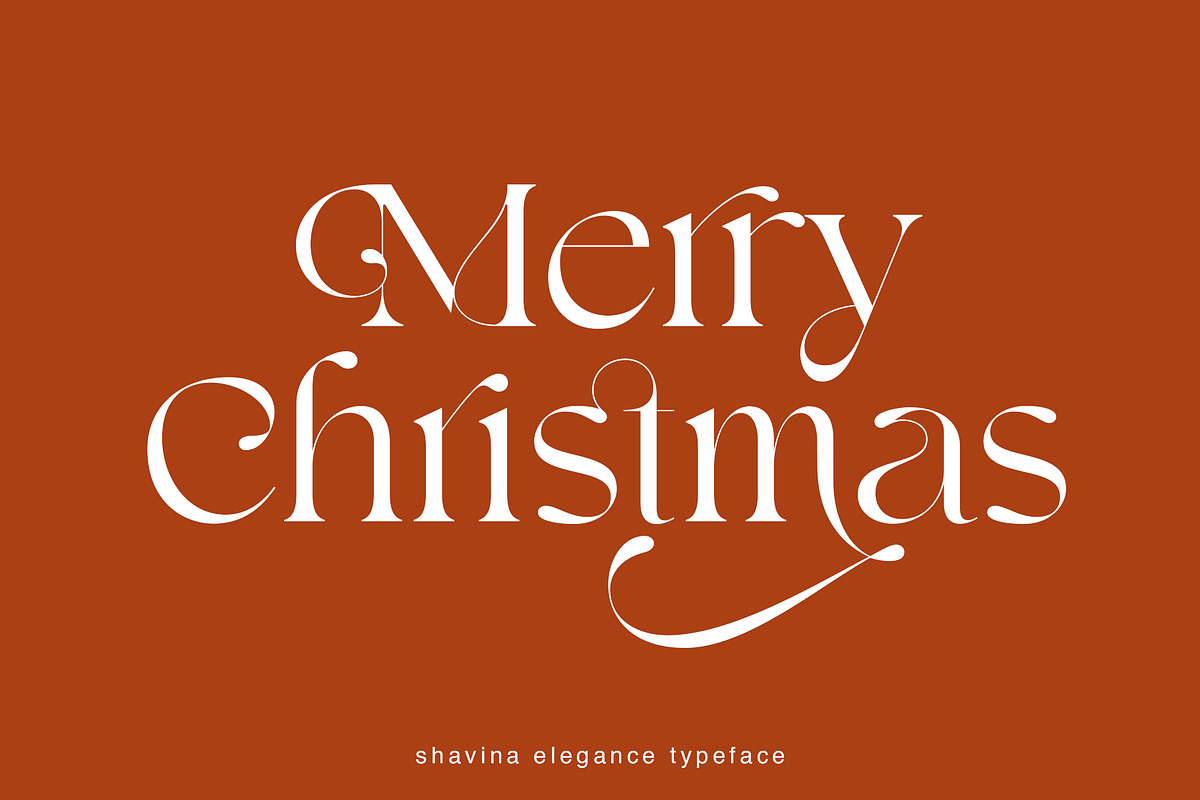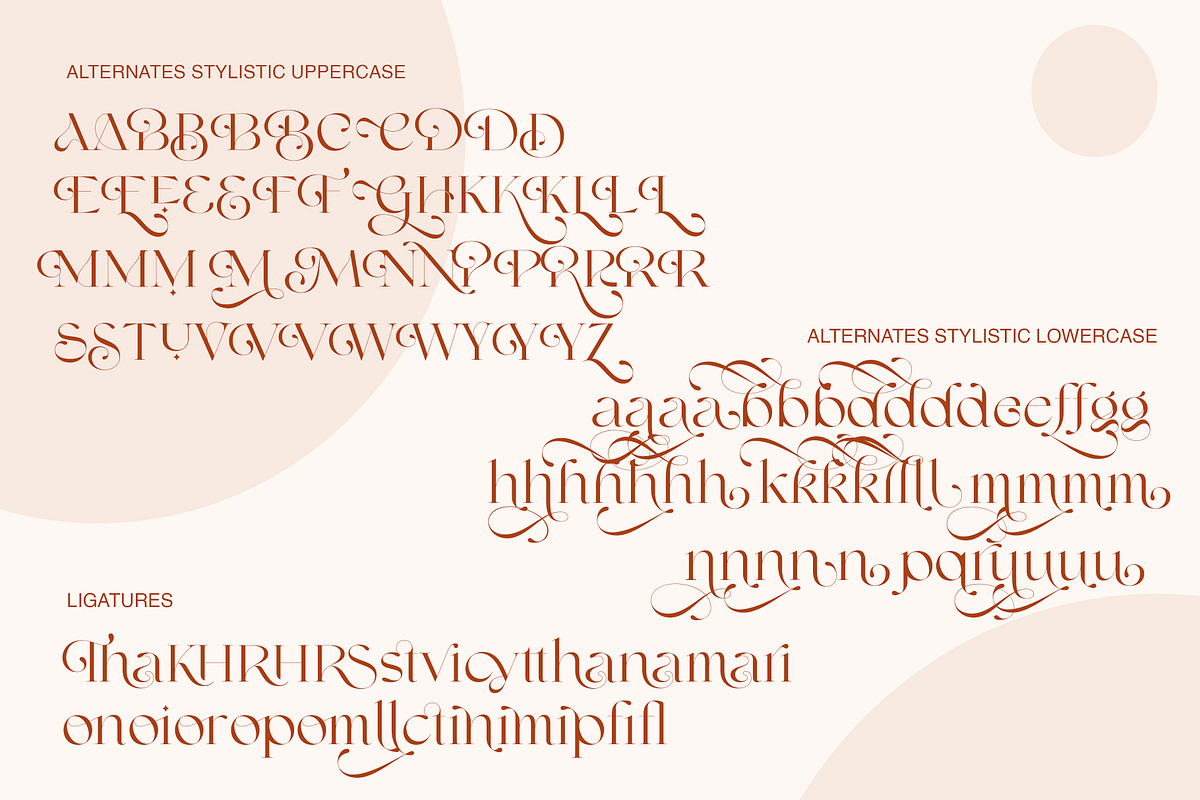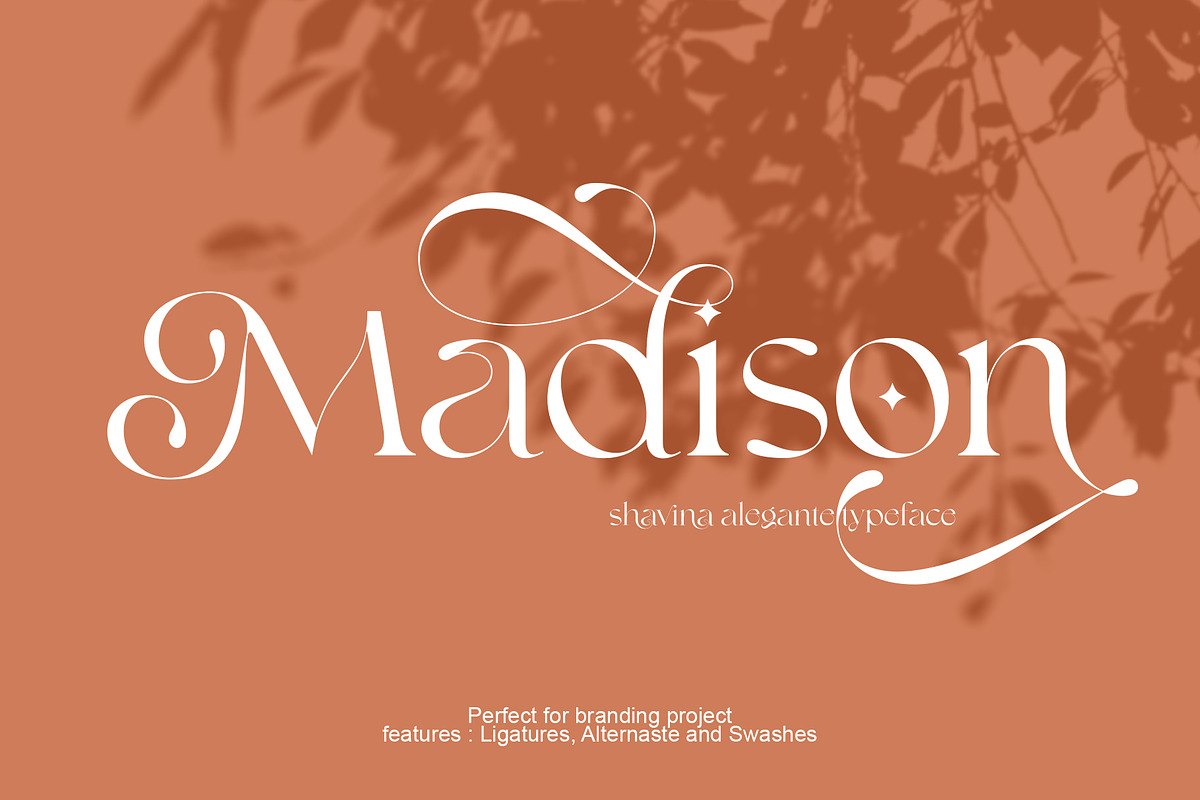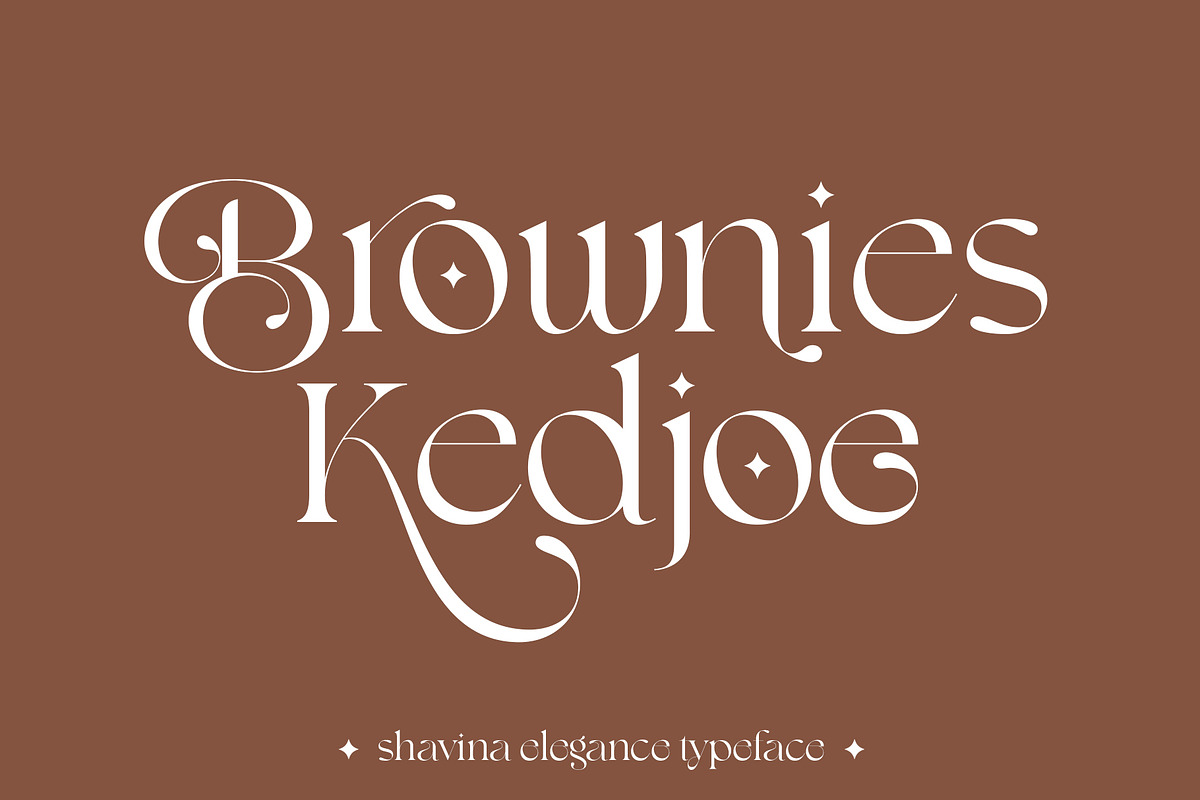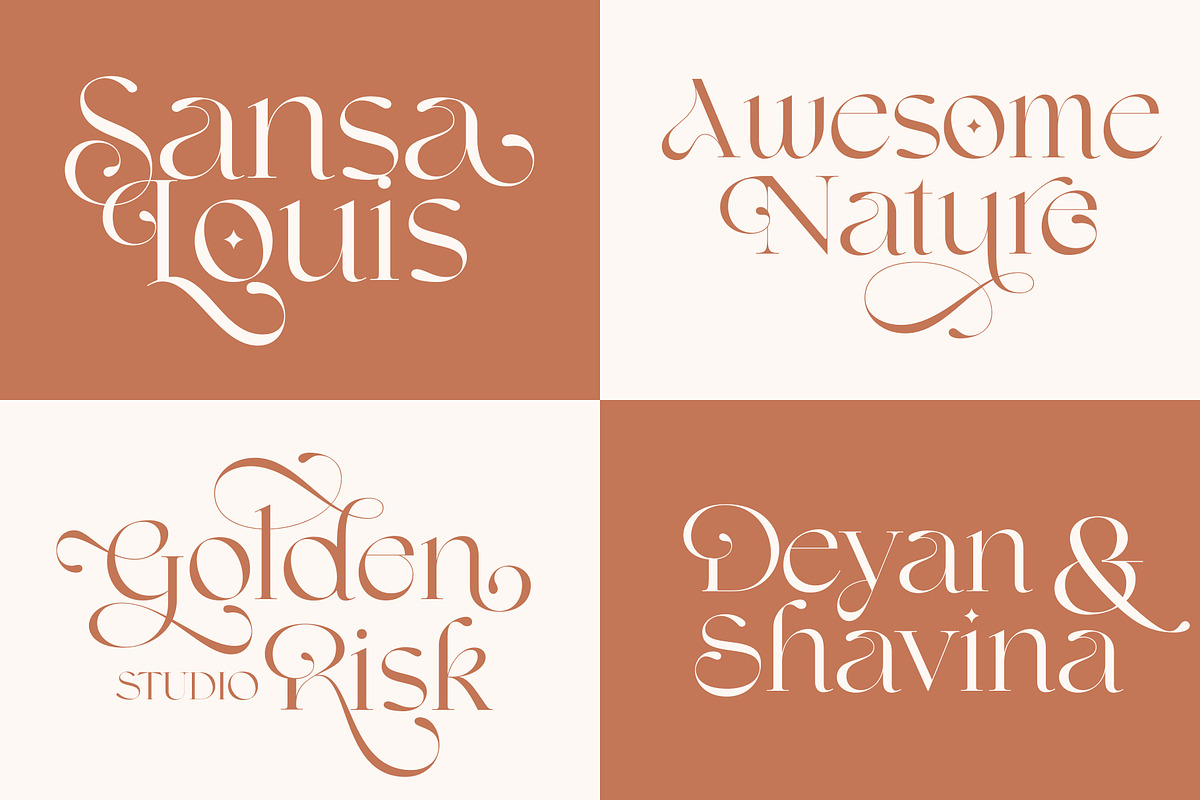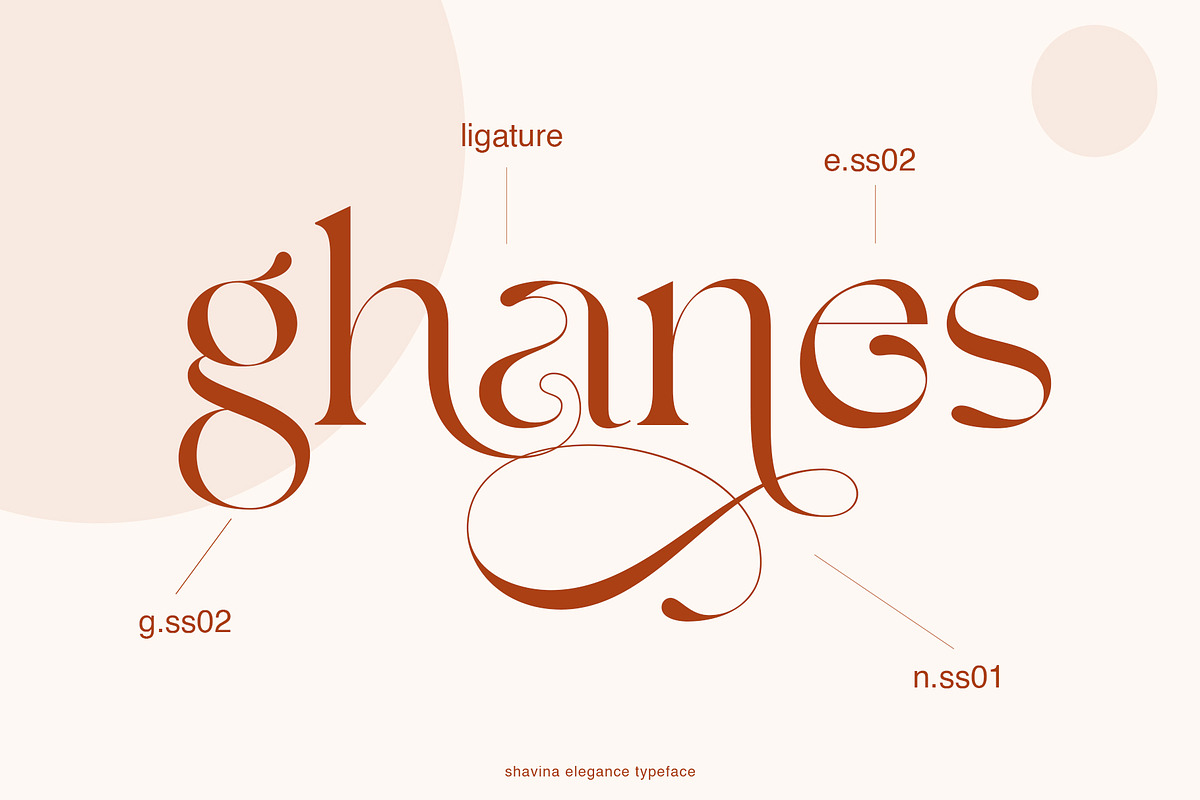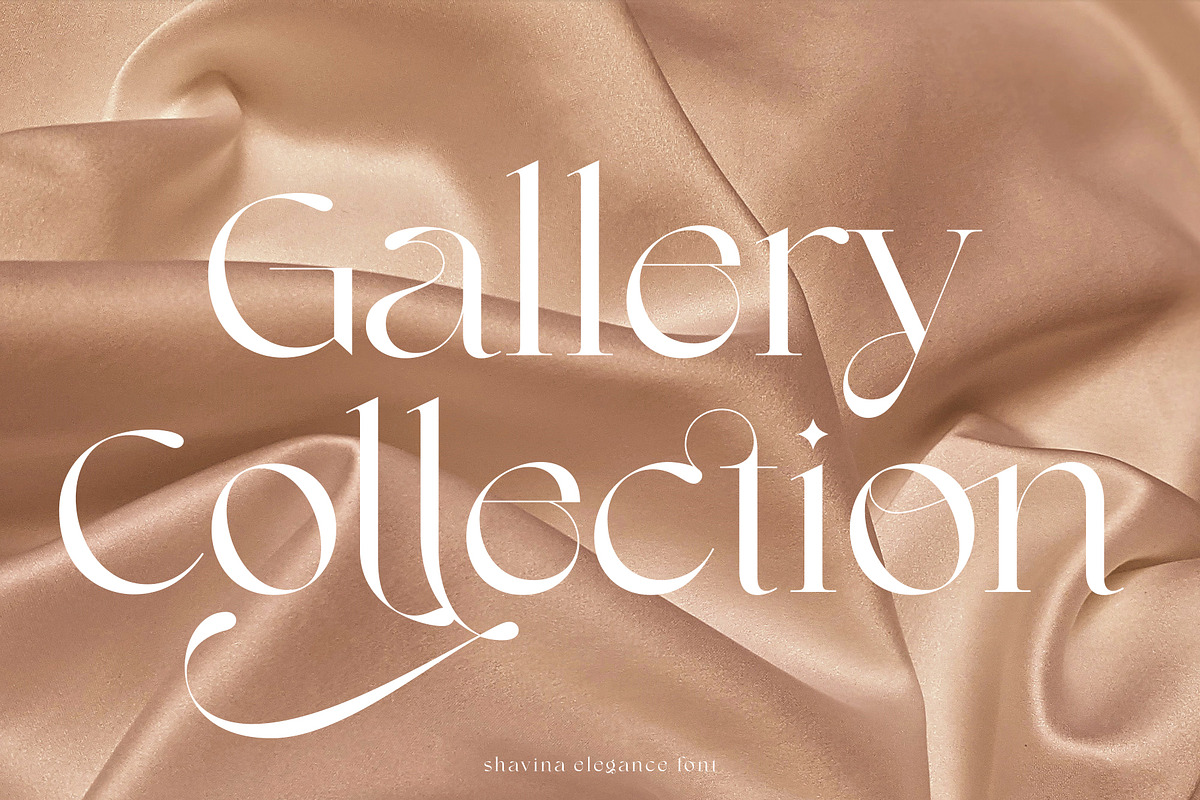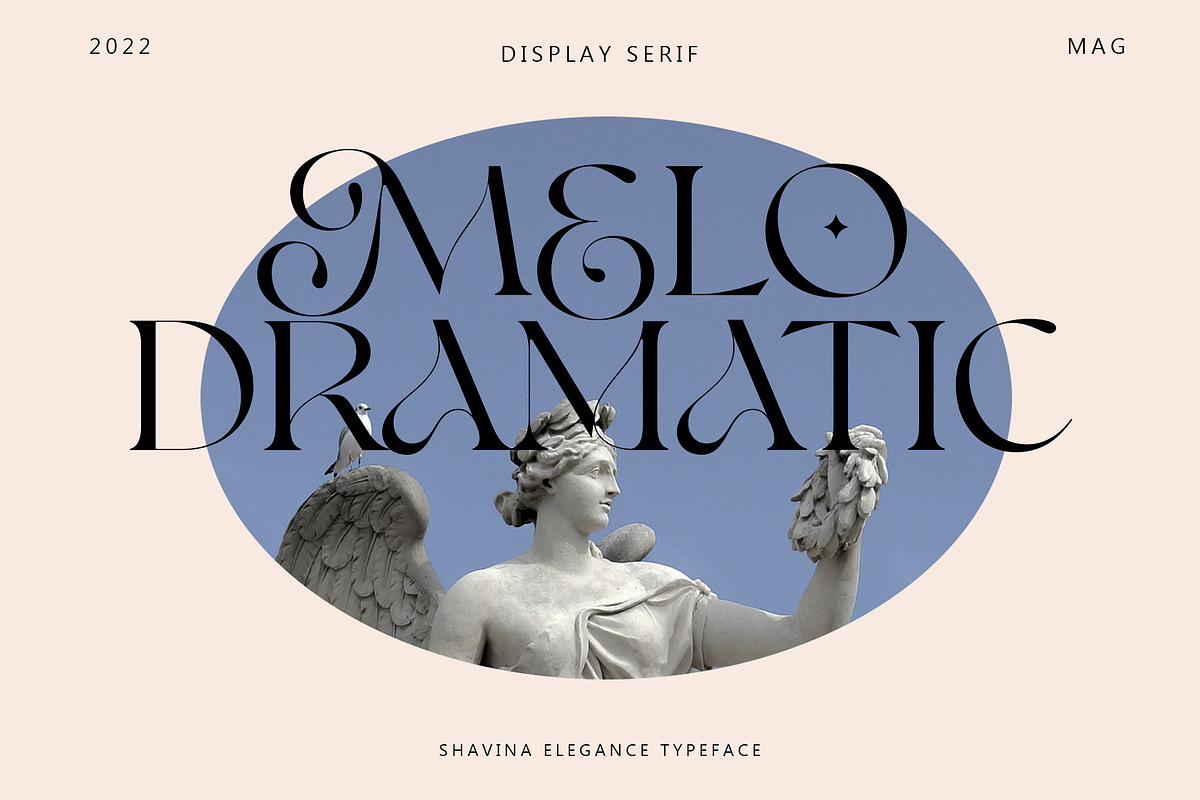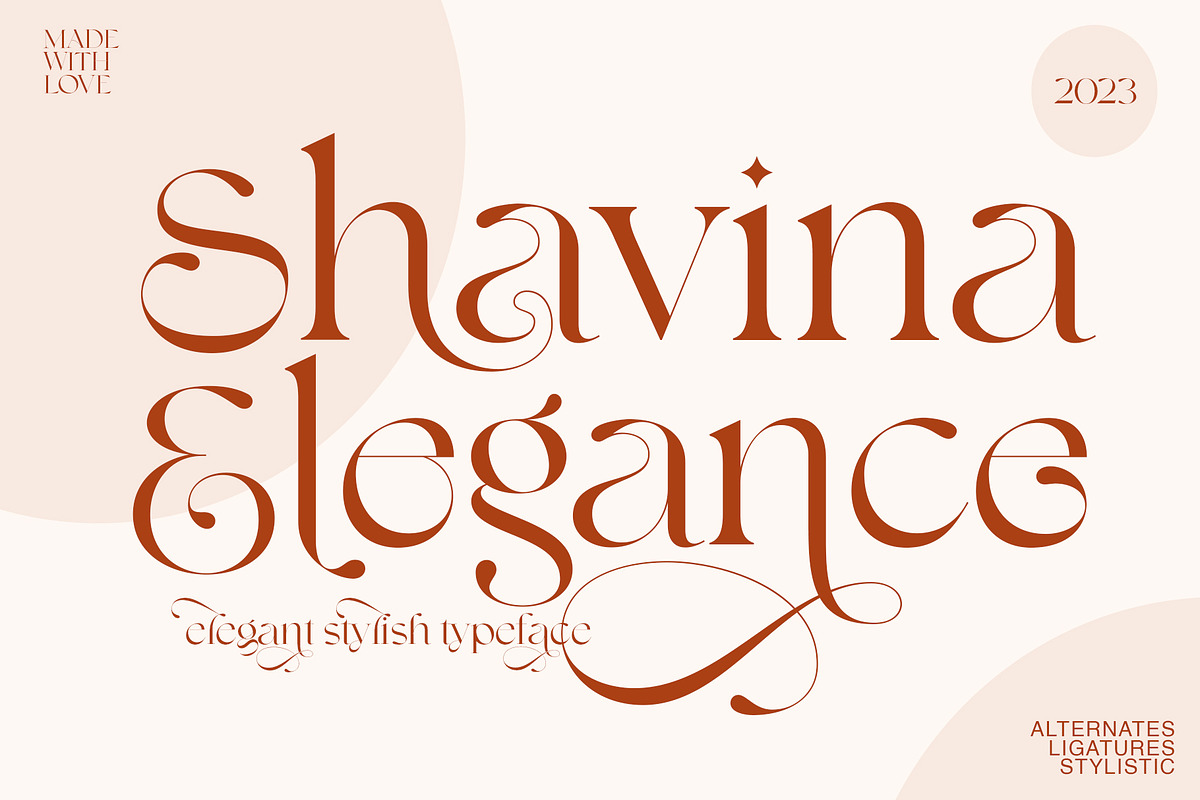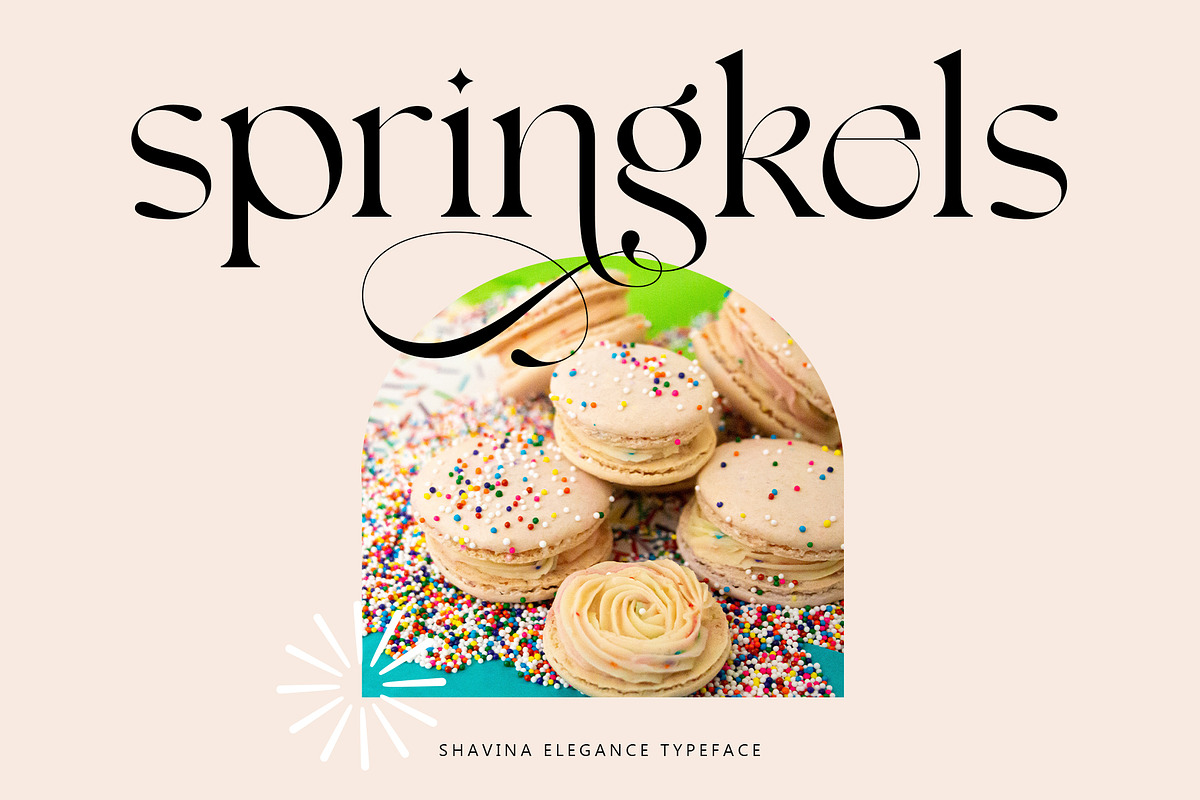
Shavina Elegance
Shavina Elegance is a special modern style font. Made with accurate accuracy with beautiful curves. With alternative characters and ligatures that make your work very special. It is perfect for branding design, logos, greeting cards, title packaging. and other designs. Immediately use our fonts to make your work even more amazing.
Shavina Elegance is also included full set of:
- uppercase and lowercase letters
- multilingual support
- numerals
- punctuation
- Stylistic set 1
- Stylistic set 2
- Stylistic set 3
- Stylistic set 4
- Stylistic set 5
- Ligature Characters